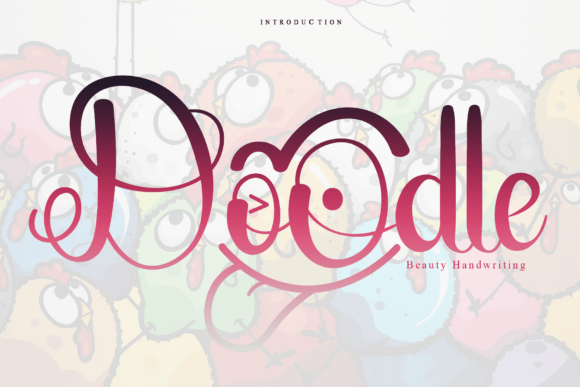
Doodle Font: The Ultimate Guide to This Cool and Modern Handwritten Font
Are you a designer, crafter, or DIY enthusiast looking for a font that can add a personal touch to your projects? Look no further than the Doodle Font! This cool and modern handwritten font is perfect for a variety of applications, from crafts and digital design to presentations and greeting cards. In this article, we’ll explore the features and benefits of the Doodle Font, and show you how to make the most of this versatile font.
What is Doodle Font?
Doodle Font is a modern handwritten font that is designed to be both fun and functional. Its unique, hand-drawn style gives it a personal and informal feel that is perfect for a wide range of projects. Whether you’re creating a craft project, designing a digital graphic, or putting together a presentation, the Doodle Font is sure to add a touch of personality and whimsy.
Key Features of Doodle Font
So what makes the Doodle Font so special? Here are just a few of its key features:
• Handwritten style: The Doodle Font has a unique, hand-drawn style that gives it a personal and informal feel.
• Modern and trendy: This font is perfect for designers and crafters who want to create modern and trendy projects.
• Versatile: The Doodle Font can be used for a wide range of projects, from crafts and digital design to presentations and greeting cards.
• Easy to read: Despite its informal style, the Doodle Font is easy to read and understand, making it perfect for use in body text.
Uses for Doodle Font
So what can you use the Doodle Font for? The possibilities are endless! Here are just a few ideas to get you started:
• Crafts: The Doodle Font is perfect for crafters who want to add a personal touch to their projects. Use it to create handmade cards, gift tags, and other paper crafts.
• Digital design: This font is also great for digital designers who want to create modern and trendy graphics. Use it to create social media graphics, blog posts, and other digital content.
• Presentations: The Doodle Font can add a touch of personality and whimsy to your presentations. Use it to create engaging and interactive slides.
• Greeting cards: This font is perfect for creating handmade greeting cards for special occasions. Use it to add a personal touch to your cards and make them stand out.
Tips for Using Doodle Font
Here are a few tips for using the Doodle Font effectively:
• Use it sparingly: While the Doodle Font is fun and playful, it can be overwhelming if used too much. Use it sparingly to add emphasis and personality to your projects.
• Pair it with other fonts: The Doodle Font can be paired with other fonts to create a unique and interesting look. Try pairing it with a bold font for headings and a serif font for body text.
• Experiment with colors: The Doodle Font looks great in a variety of colors. Experiment with different colors to find the one that works best for your project.
In conclusion, the Doodle Font is a cool and modern handwritten font that is perfect for designers, crafters, and DIY enthusiasts. Its unique style and versatility make it a great choice for a wide range of projects, from crafts and digital design to presentations and greeting cards. With its ease of use and flexibility, the Doodle Font is sure to become your go-to font for any occasion.